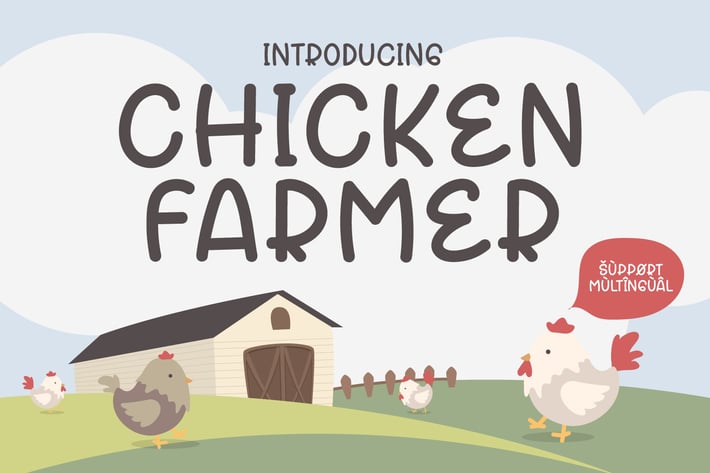
Chicken Farmer - Cute Display Font
Introducing Chicken Farmer - Cute Display Font
Chicken Farmer is a cute and playful display font. Whether you use it for cartoon related designs, children games or just any creation that requires a lovely touch, this font will be an amazing choice.